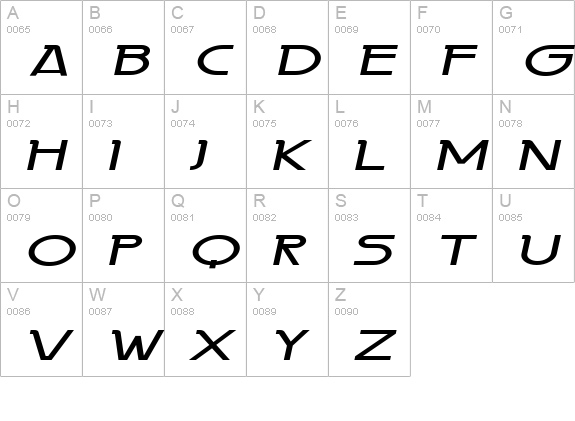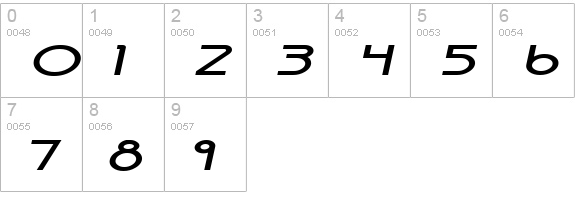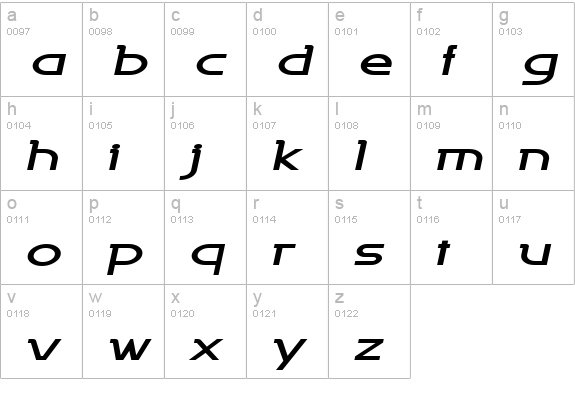
Persia Extended Bold Italic is a strong, high-contrast, extended-width, italic variant in the Persia typeface family \xE2\x80\x94 well suited to headlines, attention-grabbing titles, and strong calls-to-action.
Persia Extended Bold Italic font is a stunning and versatile typeface that exudes elegance and sophistication. With its bold strokes and graceful curves, this font is sure to make a bold statement in any design project. Whether you're creating a logo, a poster, or a website, Persia Extended Bold Italic font will add a touch of class and elegance to your work. Its unique blend of boldness and italics creates a captivating visual impact that will captivate your audience. What sets this font apart is not only its exquisite design but also its accessibility. Persia Extended Bold Italic font is freely available to download at FontsMarket.com. This means that you can bring your creative visions to life without having to worry about any additional costs. With its extensive character set, Persia Extended Bold Italic font offers a wide range of possibilities for your design projects. From headlines to body text, this font can handle it all with ease. Its legibility and readability make it the perfect choice for both print and digital mediums. Persia Extended Bold Italic font is a true masterpiece that combines beauty, versatility, and accessibility. It is a must-have for any designer or creative professional looking to make a lasting impression. So why wait? Download Persia Extended Bold Italic font today from FontsMarket.com and unleash your creativity.